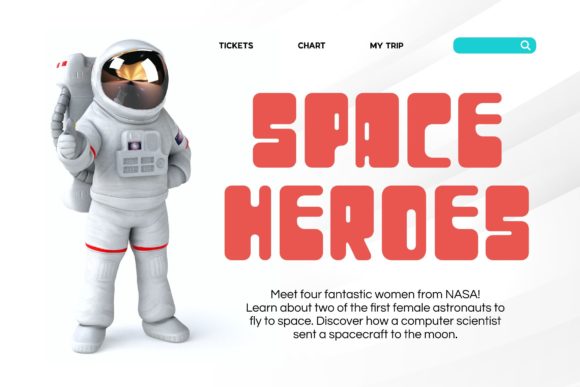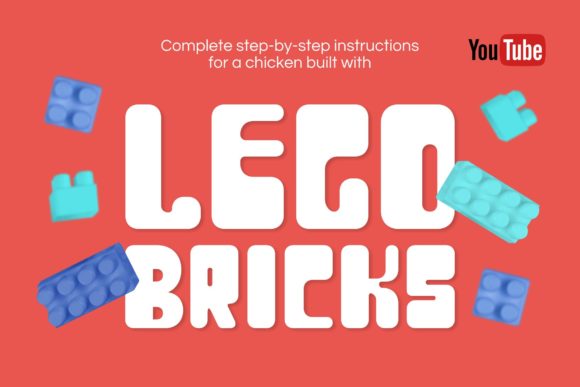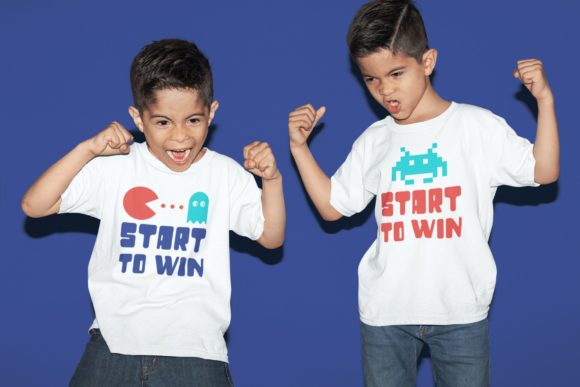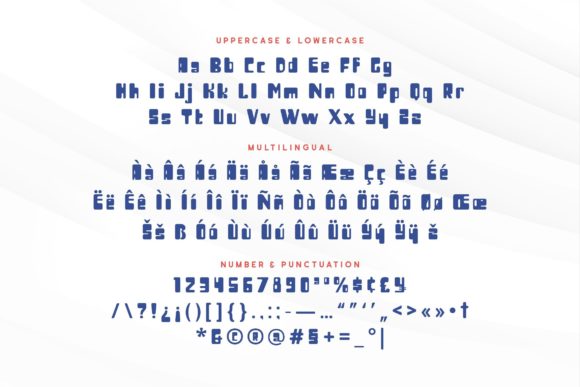
Introduction to Hello Alanon Font Font
Fonts play a crucial role in design, and the Hello Alanon Font font is a typeface that brings both character and versatility to any project. Whether you’re working on a branding project, a website, or a print design, the Hello Alanon Font font offers a unique style that can elevate your work.
Hello Alanon is a bold and punchy display font, perfect for your daring and modern creative projects.
Use it in magazine titles, marketing materials, book covers, games, posters, movies, and so much more .
The Hello Alanon Font font is more than just a typeface – it’s a design tool that helps you communicate your message with style and clarity. Its unique character set and versatile design make it suitable for a wide range of applications, from elegant invitations to bold headlines.
With its carefully crafted letterforms and balanced proportions, the Hello Alanon Font font ensures readability and visual appeal across all mediums.
The Hello Alanon Font font stands out with its unique design, exceptional readability, and versatility across various design applications.